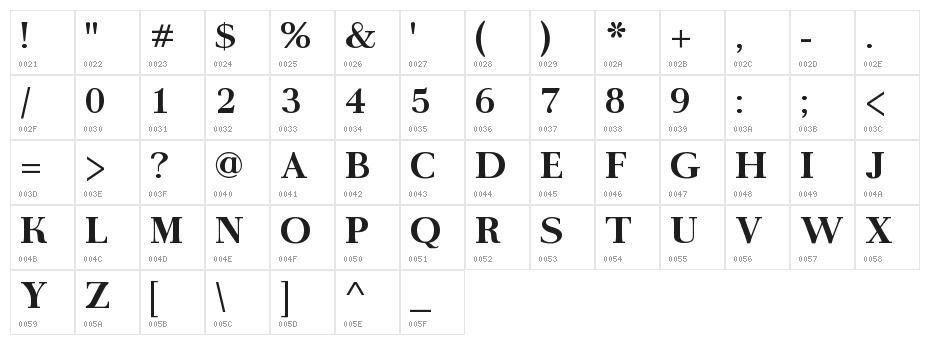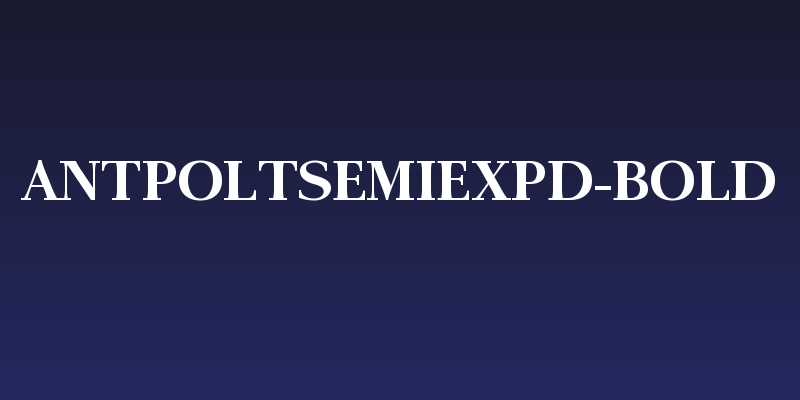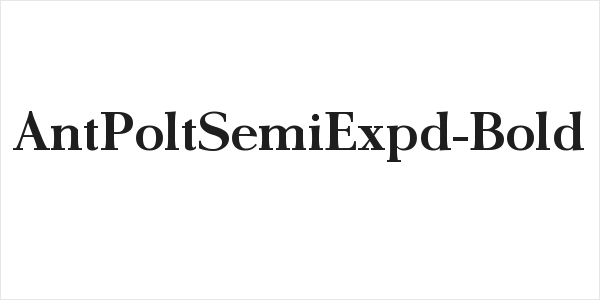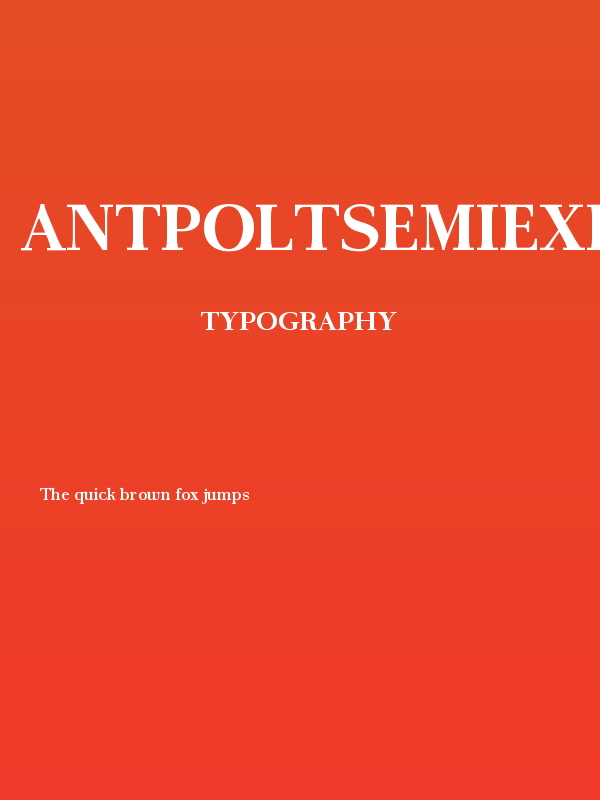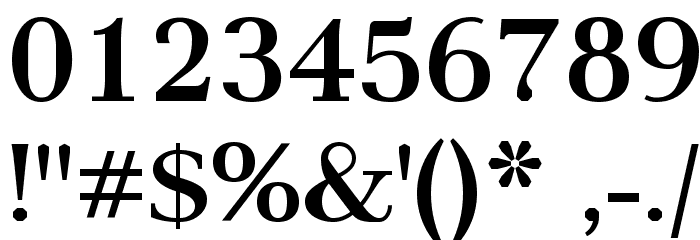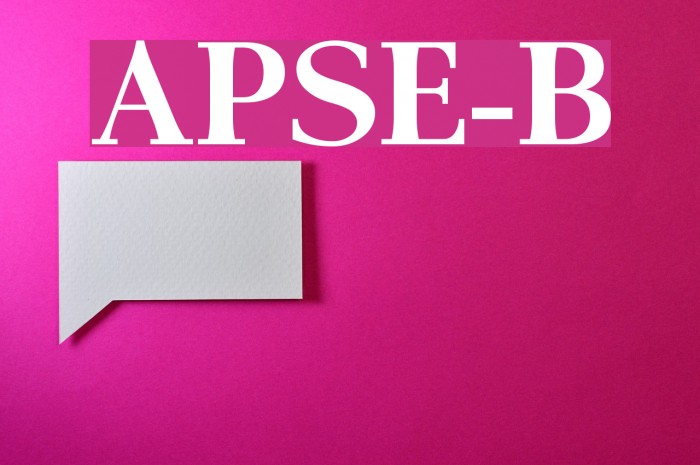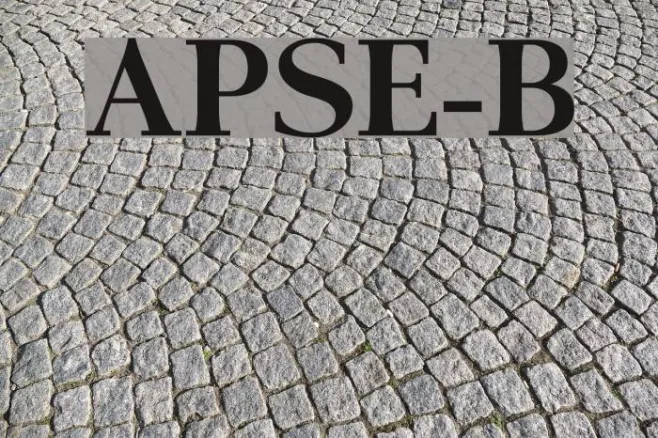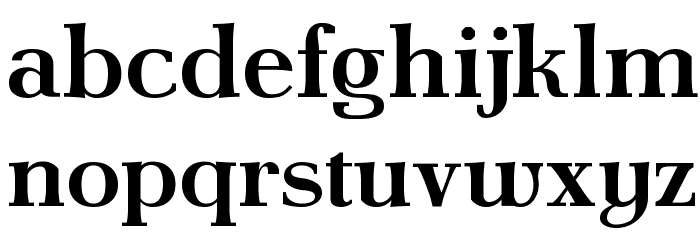
AntPoltSemiExpd-Bold Font
AntPoltSemiExpd-Bold Description
This font features a classic serif style with a bold and authoritative presence. The characters are semi-expanded, providing a slightly wider appearance that enhances readability while maintaining elegance. The uppercase letters are strong and prominent, while the lowercase letters offer a balanced and harmonious look. The numerals are clear and distinct, making them suitable for various applications. The special characters are well-defined, adding versatility to the font's usage. Overall, this font combines traditional serif elements with a modern twist, making it suitable for both formal and contemporary designs.
| Proposed Projects | Ideal for editorial design, book covers, branding, and formal invitations. |